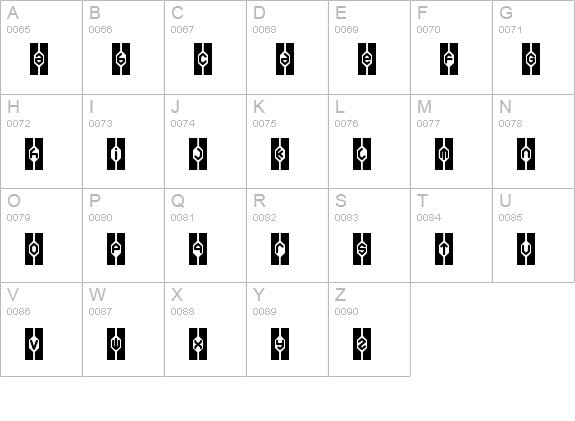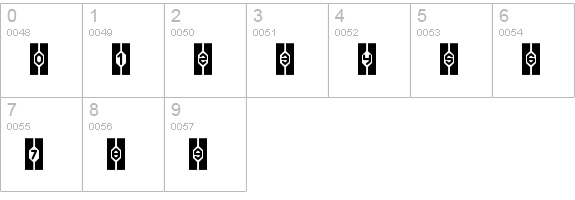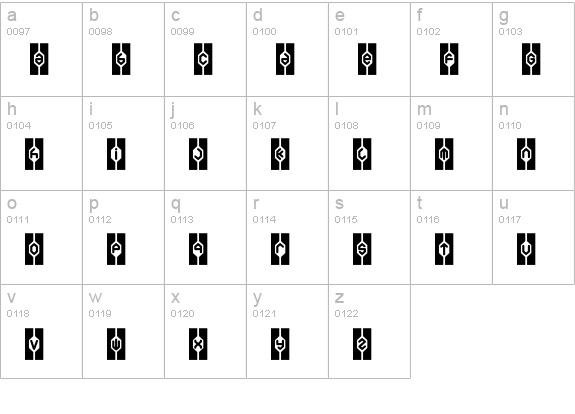
WelfareBrat Font Details
Introducing WelfareBrat font, a captivating and versatile typeface that is sure to make a lasting impression. With its unique and edgy design, this font is perfect for adding a touch of rebelliousness and attitude to any project. WelfareBrat font boasts an extensive character set, including both uppercase and lowercase letters, numbers, punctuation marks, and special characters. Its stylish and bold letterforms are meticulously crafted, ensuring a visually stunning result every time. This font is not only visually appealing but also highly legible, making it suitable for a wide range of design projects. Whether you're creating eye-catching posters, attention-grabbing social media posts, or designing a rebellious logo for your brand, WelfareBrat font has got you covered. One of the best things about WelfareBrat font is that it is free! That's right, this incredible font is freely available to download at FontsMarket.com. Say goodbye to expensive font licenses and hello to creativity without any financial constraints. Now you can bring your design visions to life without breaking the bank. So why wait? Download WelfareBrat font today and let your creativity flow. With its unique and rebellious design, this font is sure to make a bold statement in any project. Whether you're a designer, a marketer, or a creative enthusiast, WelfareBrat font is a must-have in your font collection. Get ready to unleash your rebellious side and create stunning designs that will leave a lasting impact.